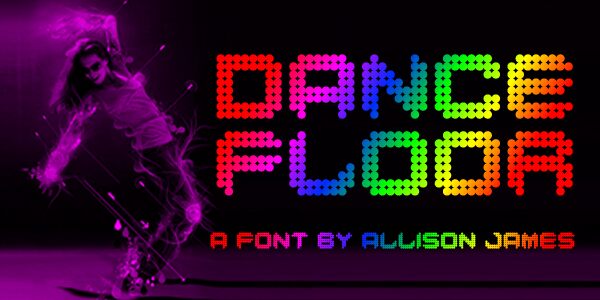
Dance Floor is a bold, digital display font that exudes a dynamic, energetic vibe. Designed by Chequered Ink, this expanded typeface boasts striking geometric forms that command attention.
The sharp, angular letterforms convey a sense of movement and electricity, making it an ideal choice for design projects seeking a high-impact, visually striking aesthetic. From eye-catching headings and impactful logos to energetic event branding and electrifying movie titles, Dance Floor's bold presence can elevate a variety of design applications.
Its versatility and distinctive style make it a compelling option for design professionals looking to inject a dose of excitement and vibrancy into their work.
Dance Floor